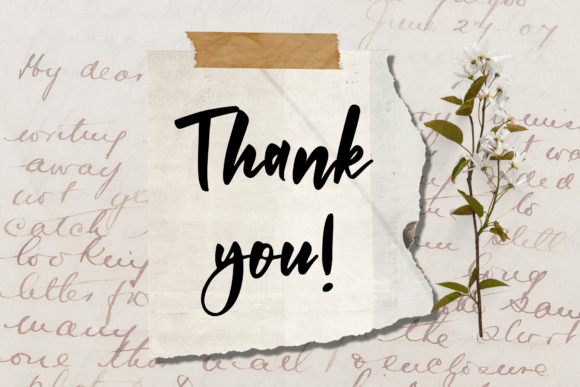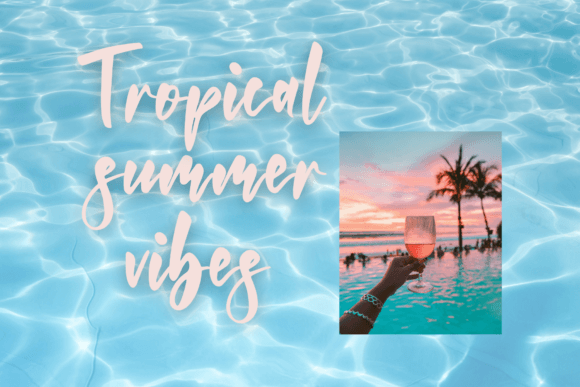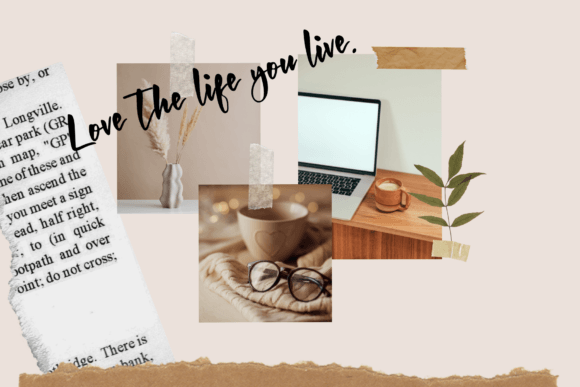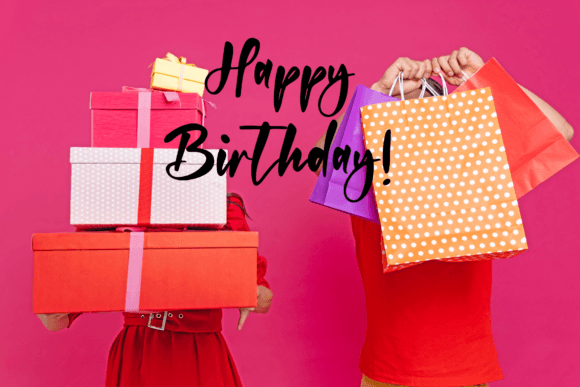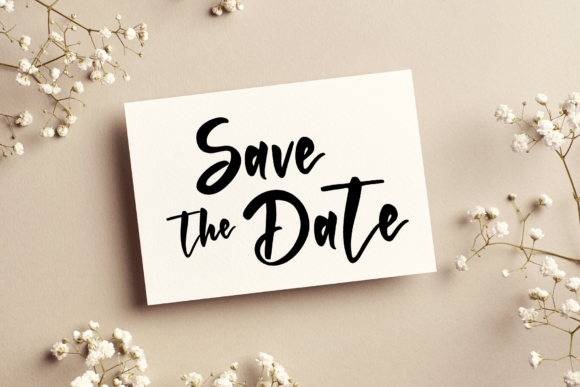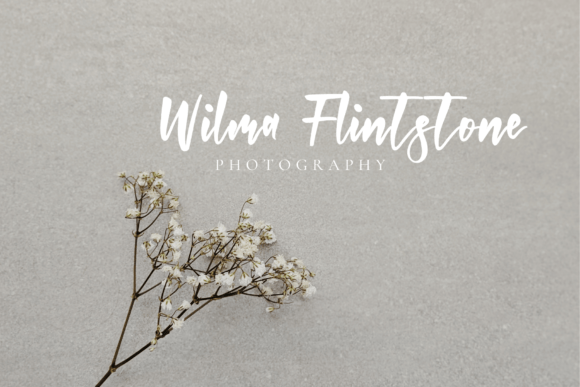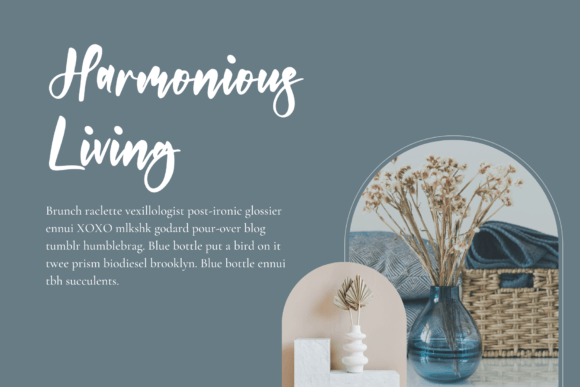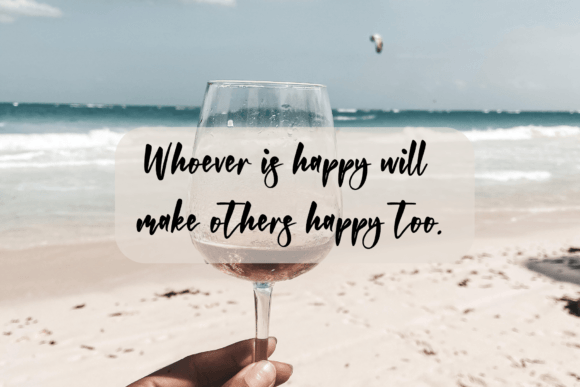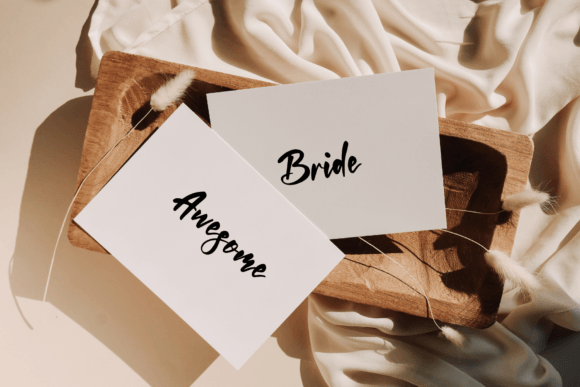
Lolinola Font
About Lolinola Font
**Elevate Your Designs with the “Lolinola” Script Font**
Transform your creative projects into works of art by incorporating the “Lolinola” script font. With its handcrafted elegance, this font adds a beautiful, handcrafted touch to your work. Here’s how “Lolinola” can elevate your designs:
1. **Unique Handcrafted Appeal:** “Lolinola” brings a unique handcrafted appeal to your projects. Its organic and flowing design mimics the beauty of hand-lettering, adding authenticity and charm.
2. **Elegant Aesthetics:** The font’s elegant aesthetics make it ideal for a wide range of applications. Whether you’re working on branding, invitations, blogs, or planners, “Lolinola” adds a touch of sophistication.
3. **Authenticity and Originality:** When you want to stand out with authenticity and originality, “Lolinola” is the perfect choice. It offers a distinct look that sets your work apart from the ordinary.
4. **Brand Identity:** Use “Lolinola” to create a brand identity that exudes elegance and craftsmanship. It’s perfect for businesses that value a handcrafted, artisanal image.
5. **Invitations:** Craft stunning and memorable invitations for weddings, events, or special occasions. “Lolinola” adds a touch of timeless elegance to your invitation designs.
6. **Blog Graphics:** Create eye-catching blog graphics and social media posts that engage your audience. “Lolinola” provides the perfect blend of style and readability for digital content.
7. **Planners and Journals:** Enhance the aesthetic of planners, journals, and notebooks with the graceful “Lolinola” font. It adds a personal and artistic touch to these everyday items.
8. **Artistic Expression:** Express your creativity through typography. “Lolinola” allows you to infuse your text with artistic expression, making your message more impactful.
9. **Timeless Beauty:** The font’s timeless beauty ensures that your designs remain appealing and relevant for years to come. It withstands design trends and retains its elegance.
10. **Ease of Use:** “Lolinola” is user-friendly, making it accessible for designers of all levels. You can effortlessly add an authentic hand-lettered touch to your projects.
Whether you’re looking to create a brand identity that radiates elegance, invitations that leave a lasting impression, or blog graphics that captivate your readers, “Lolinola” is your go-to font. It effortlessly blends handcrafted beauty with modern design, allowing you to infuse your work with a touch of authenticity and sophistication. Elevate your designs today with the “Lolinola” script font.